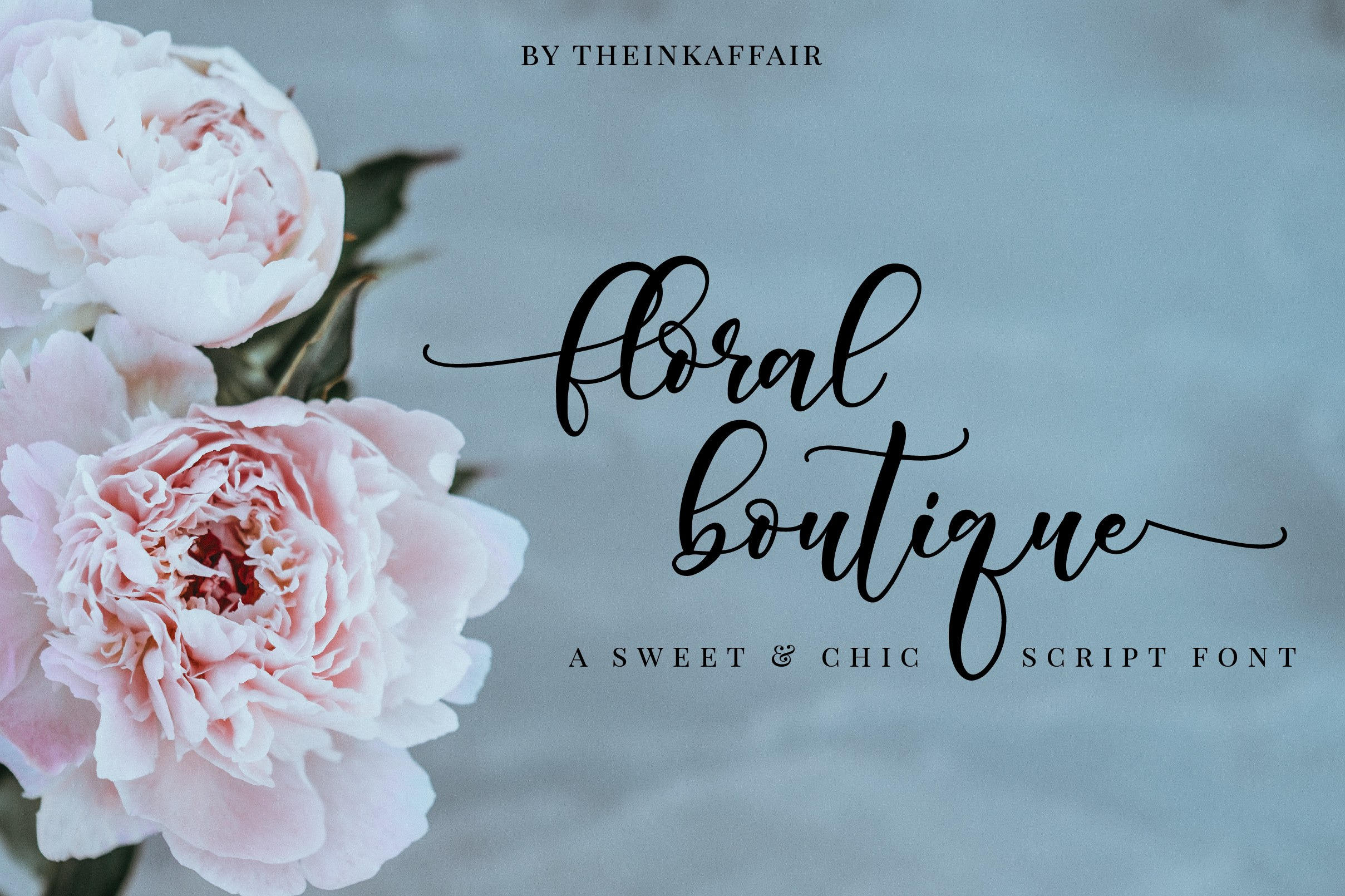
Floral Boutique Calligraphy Font
Introducing Floral Boutique, a sweet calligraphy script font made of all things lovely and sweet. It's perfect for branding, wedding invites, logos, magazines, photo overlays, blogs and so much more!
Floral boutique includes a full set of beautiful uppercase and lowercase letters, numerals, punctuations and ligatures. It also includes beginning and ending swashes as alternate letters.